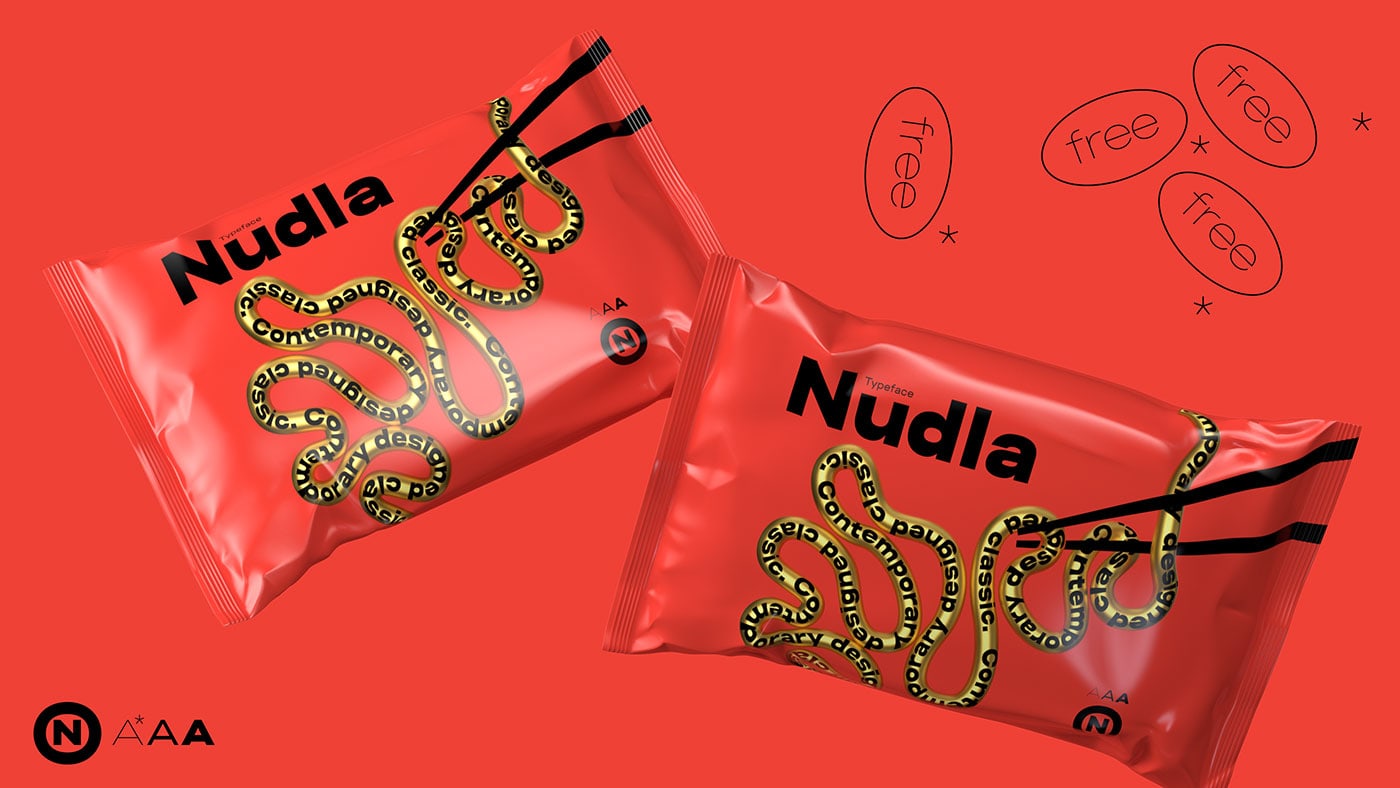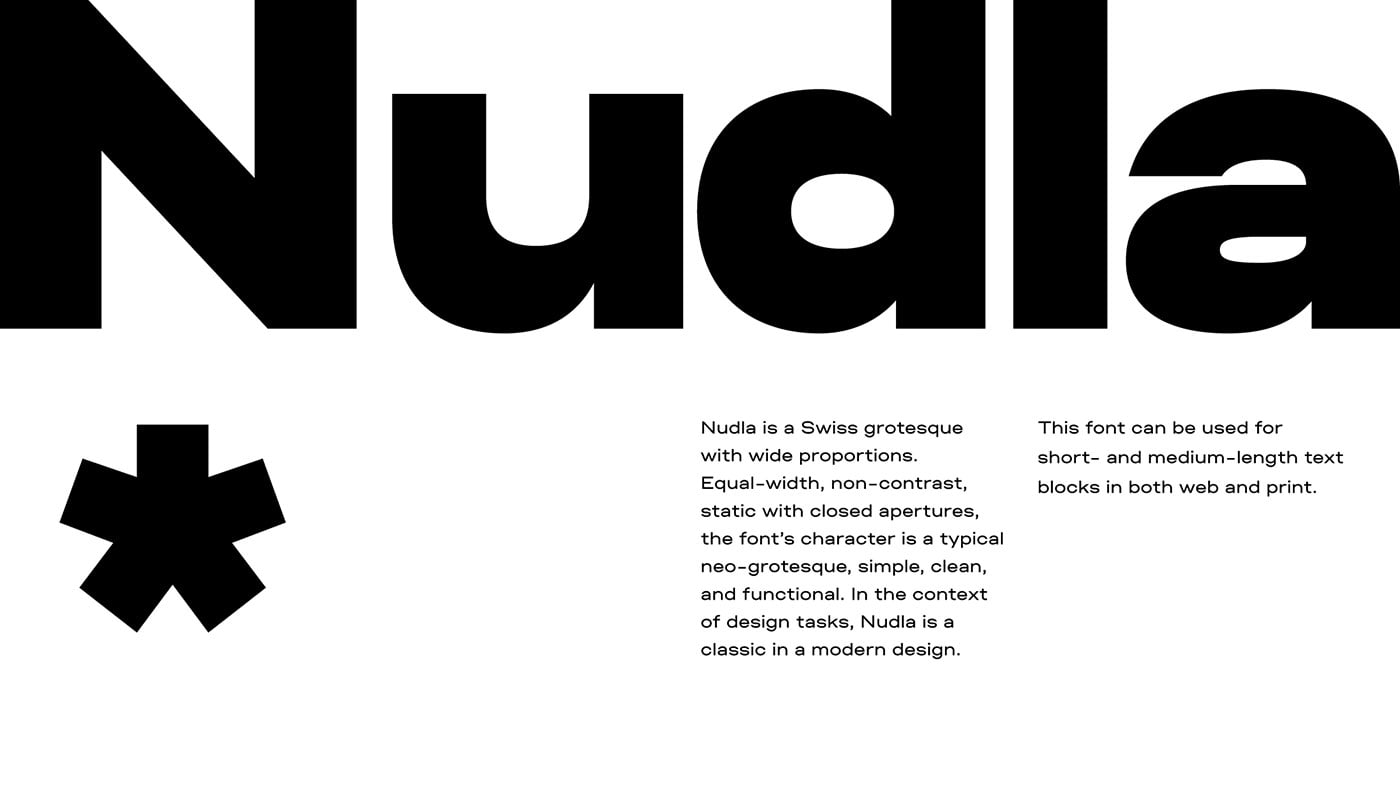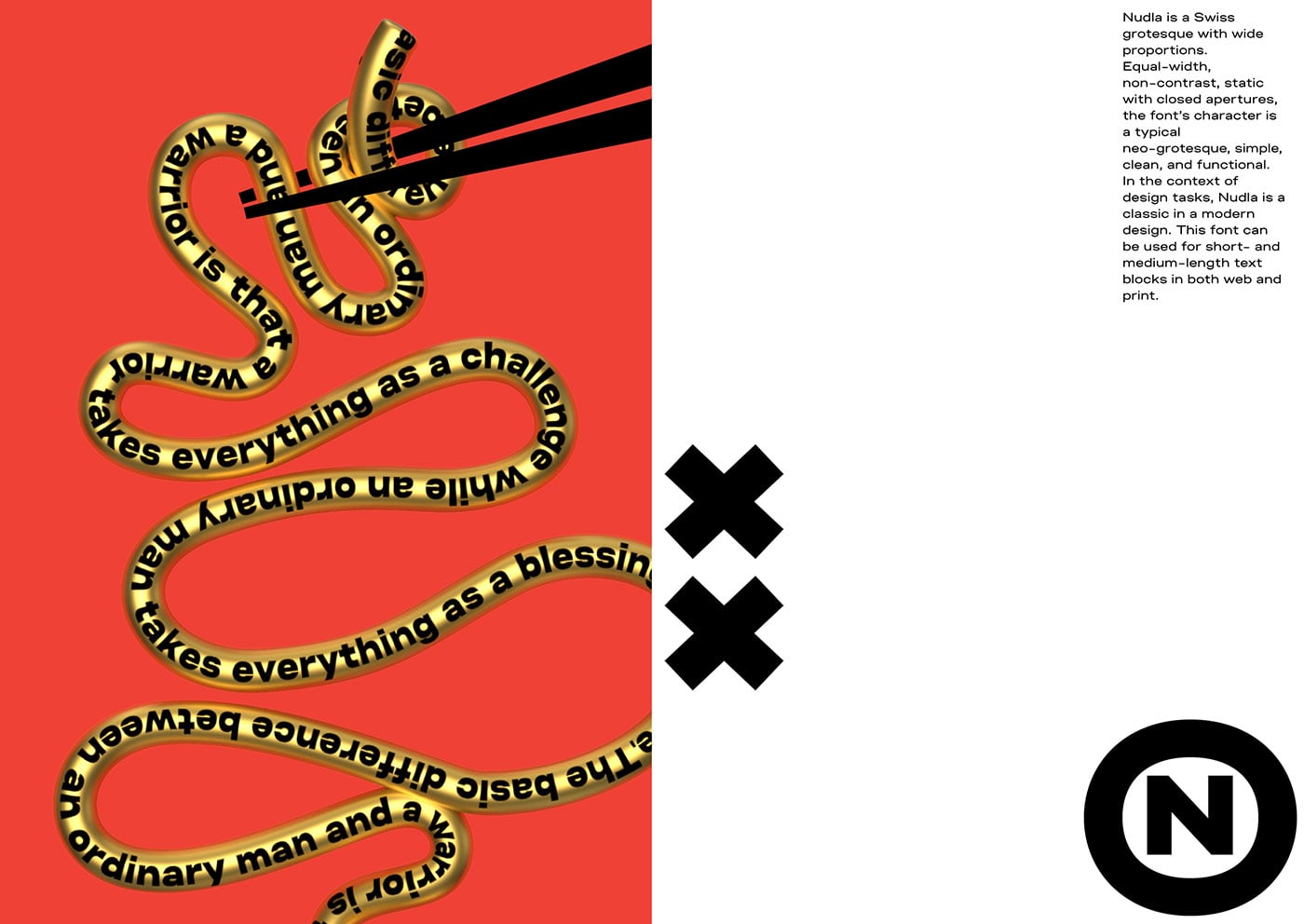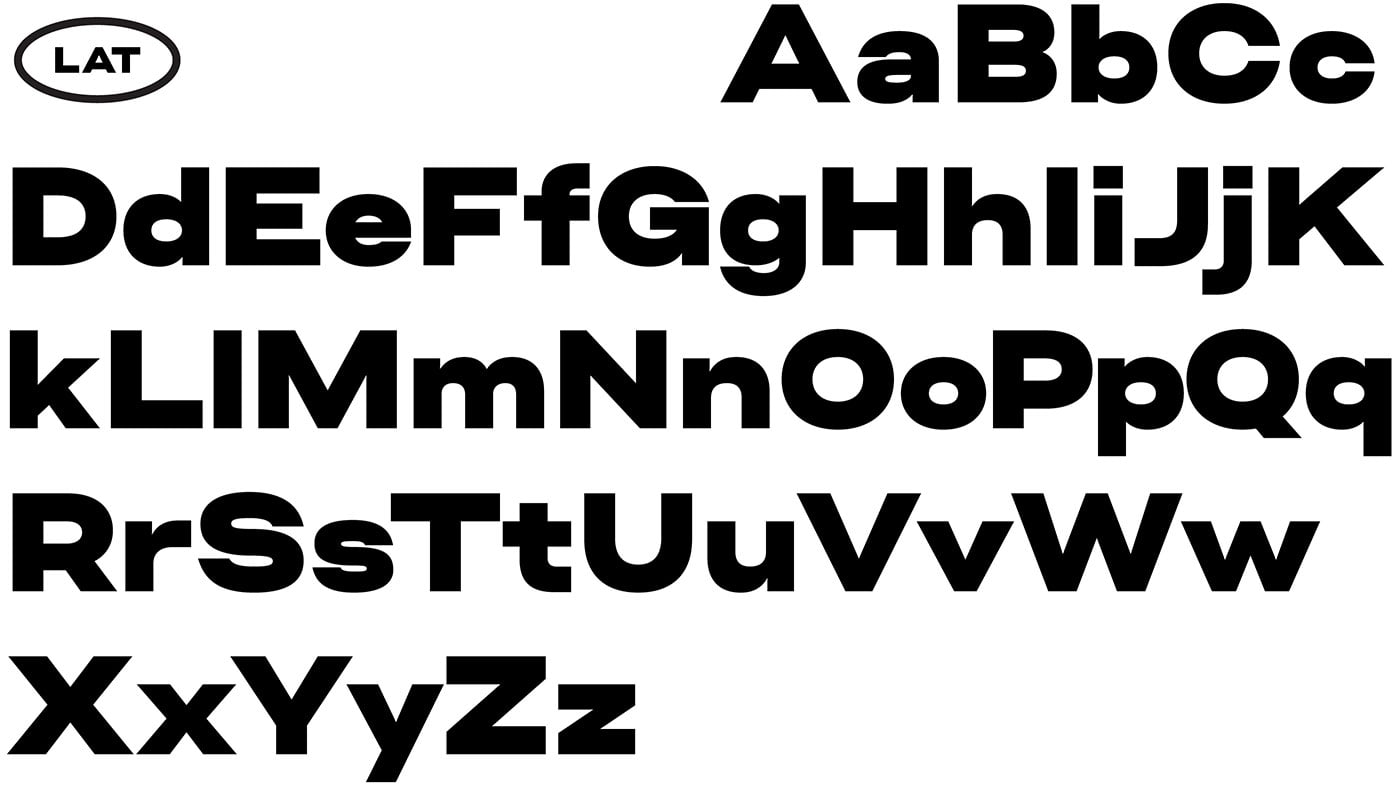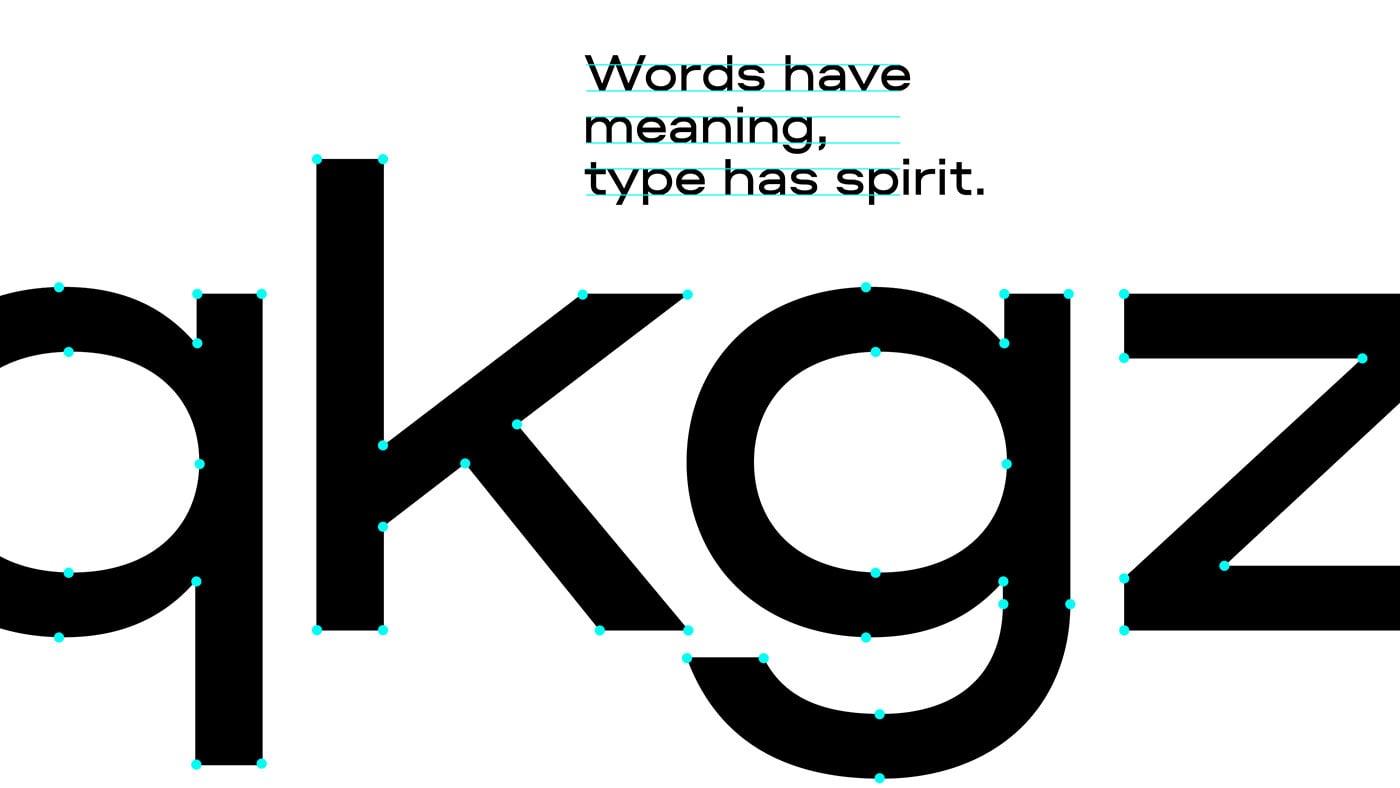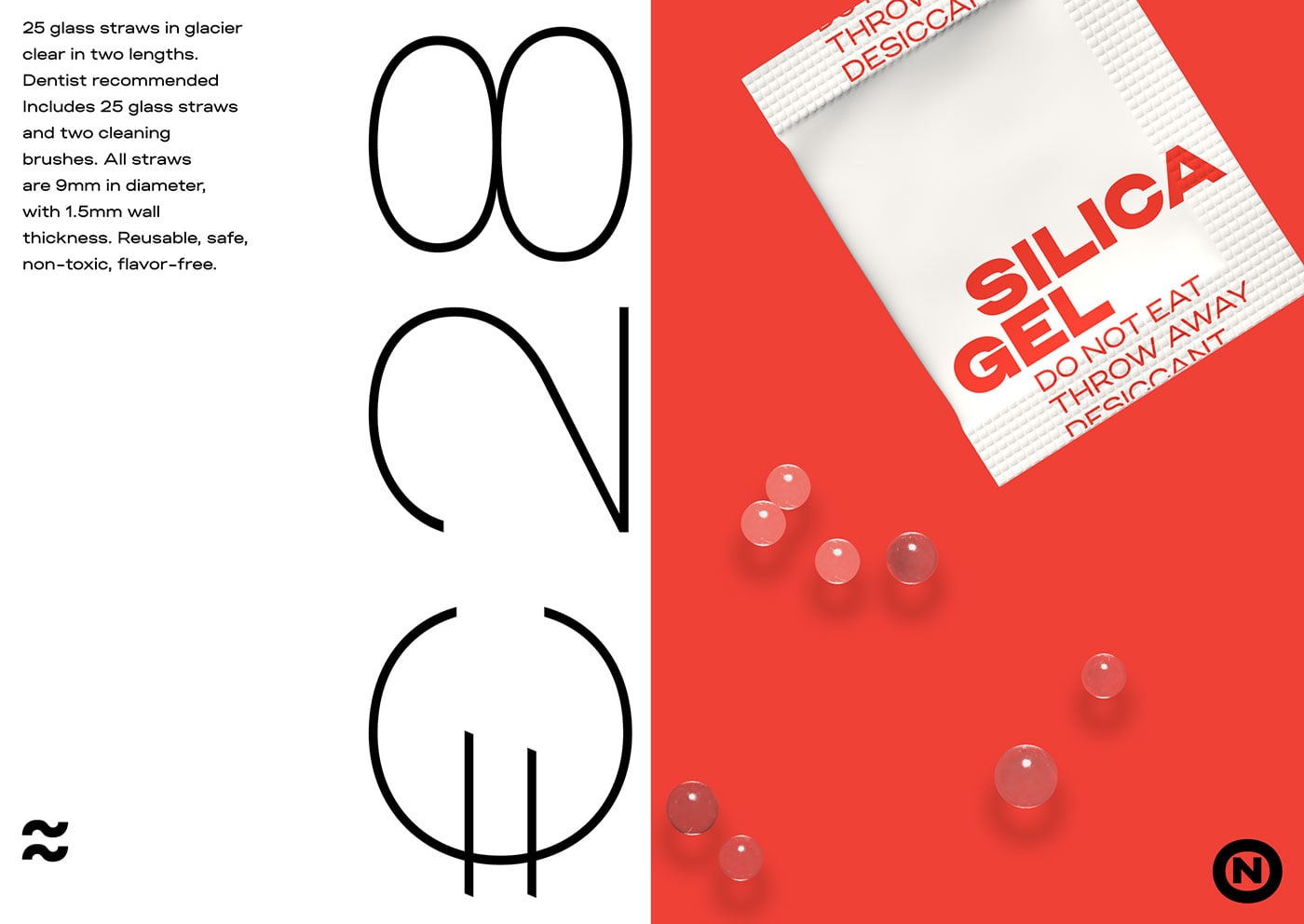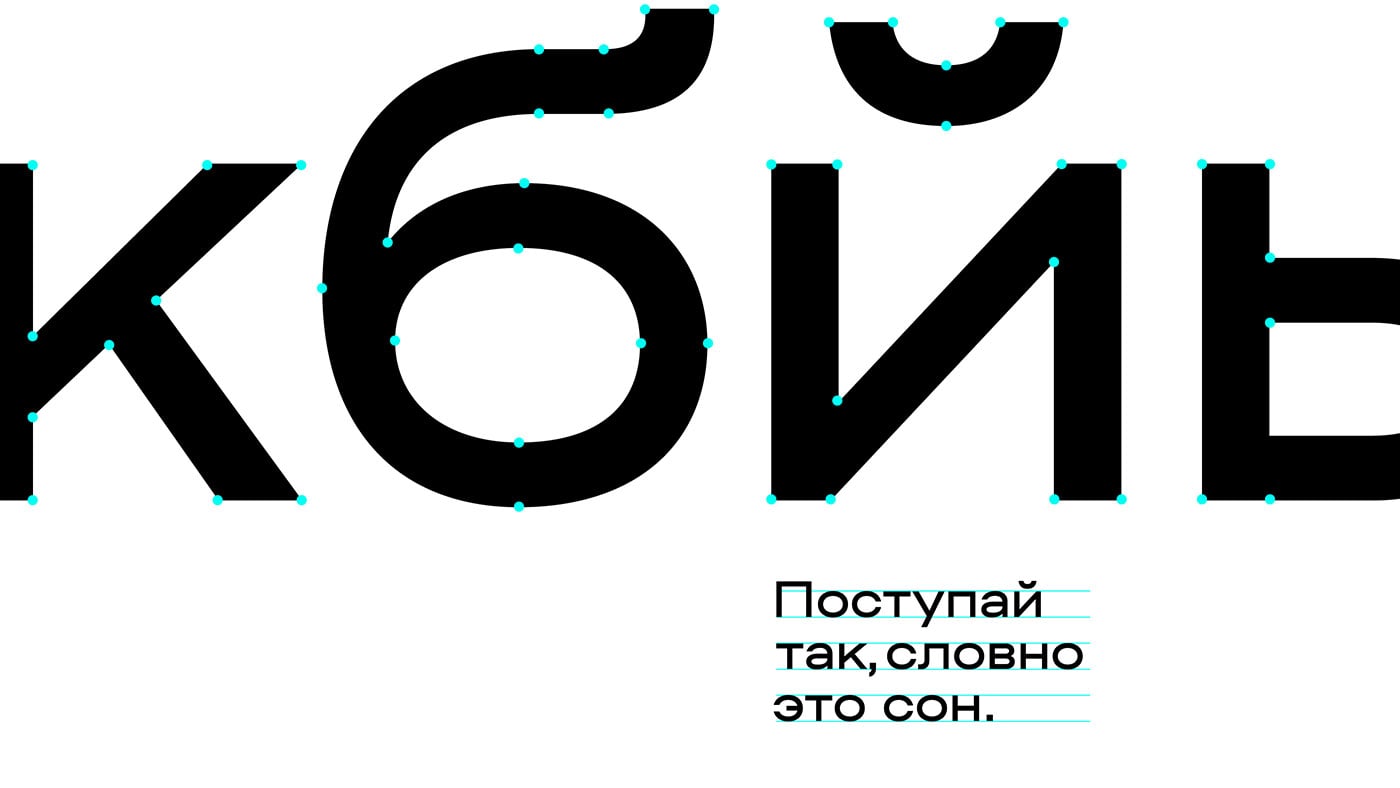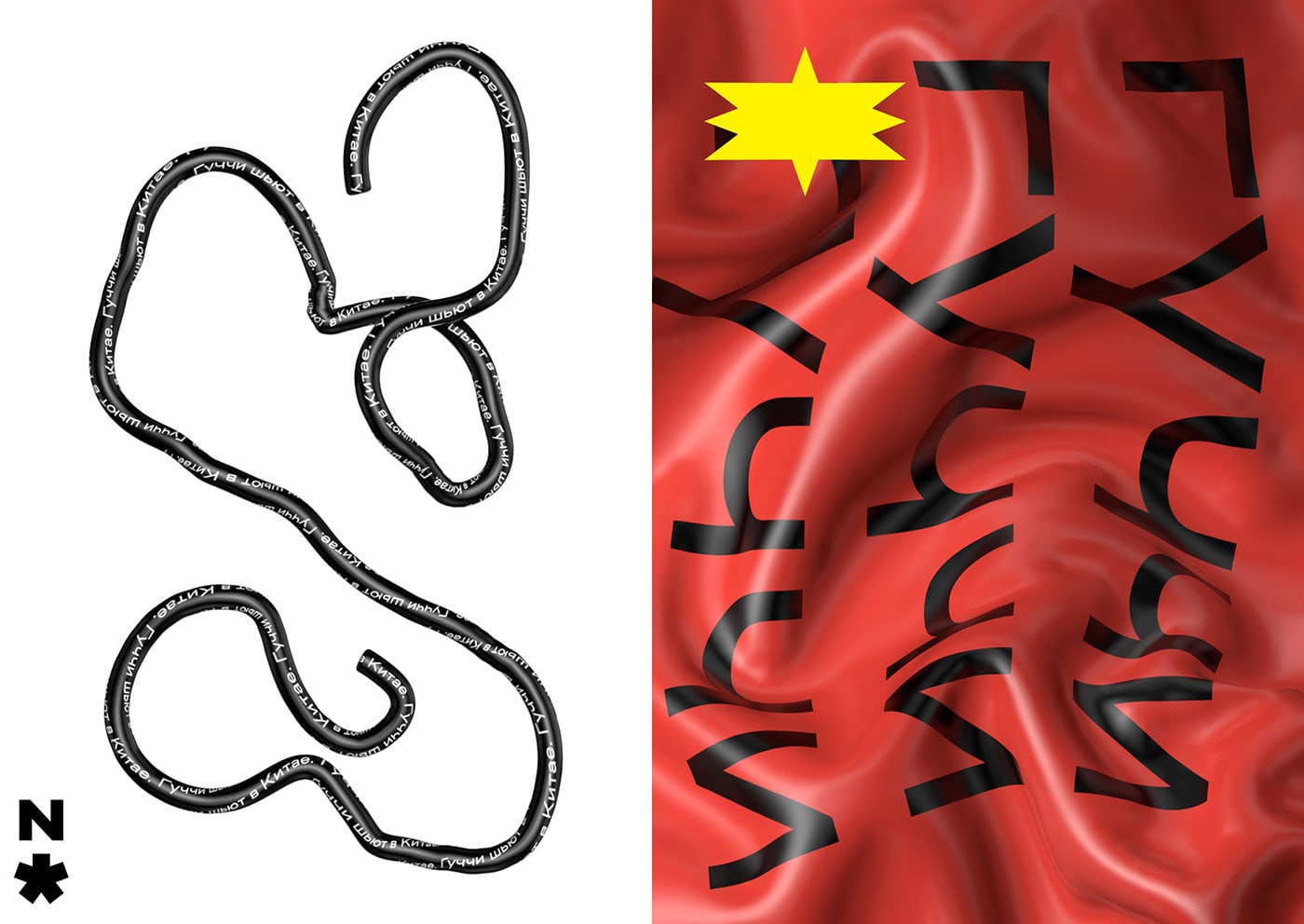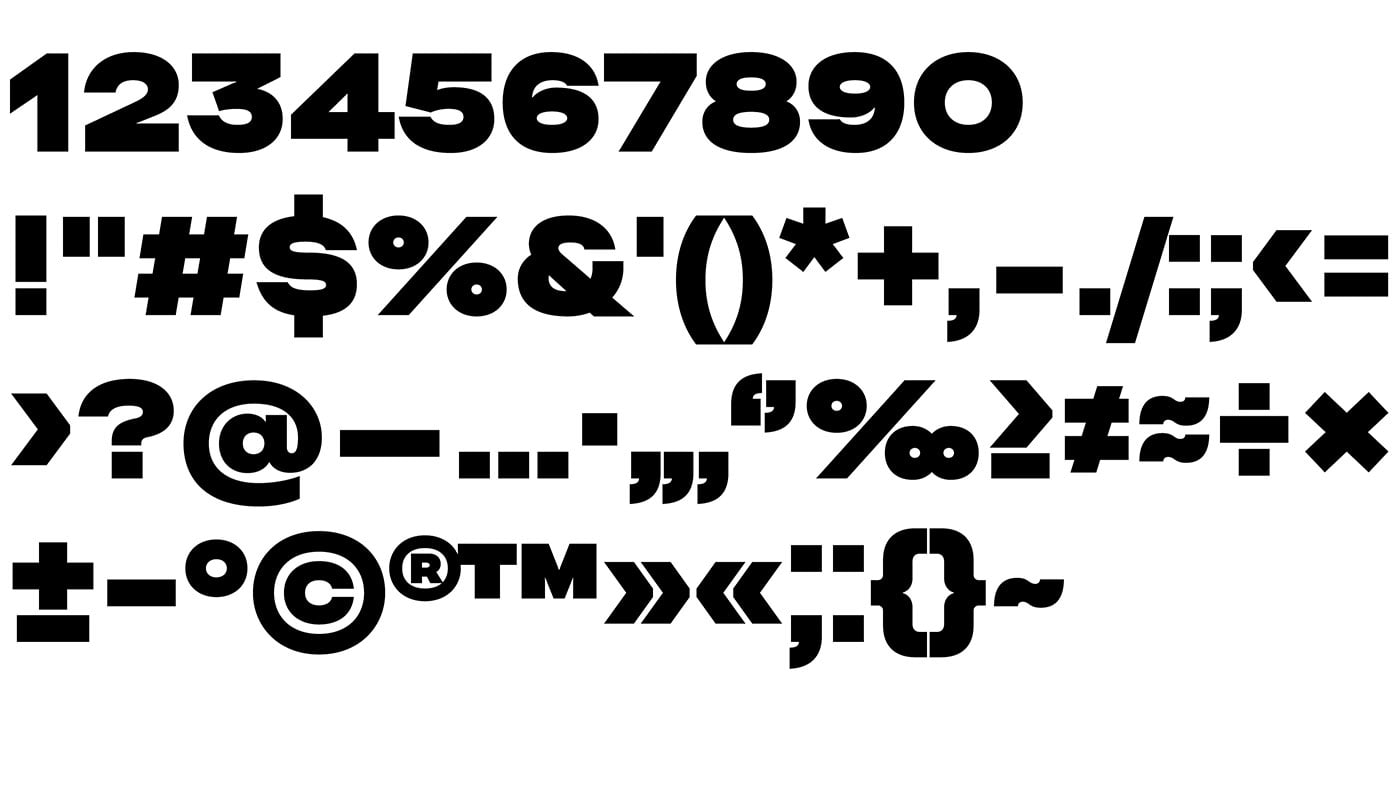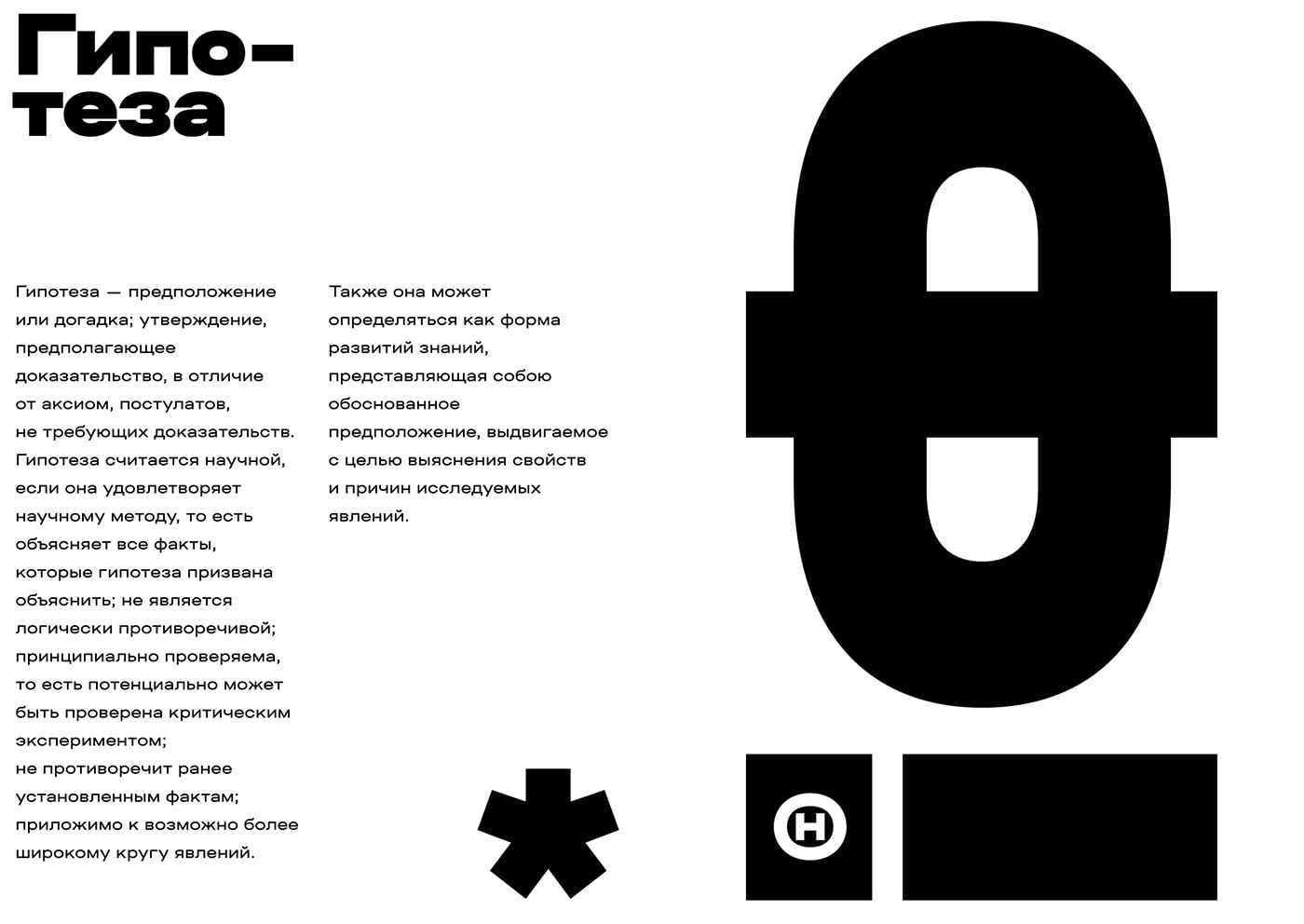
Glen Jan designed Nudla typeface. Nudla is a Swiss grotesque (neo-grotesque) with wide proportions. Equal-width, non-contrast, static with closed apertures, the font’s character is a typical neo-grotesque, simple, clean, and functional. In the context of design tasks, Nudla is a classic in a modern design.
This font can be used for short- and medium-length text blocks in both web and print. There are three weights available: thin, regular, and bold. Thin and bold are created for large copy lines, titles, typographic compositions, and posters. Regular is for medium-sized texts of relatively small volume. Nudla Thin available for free. Find your download link further.